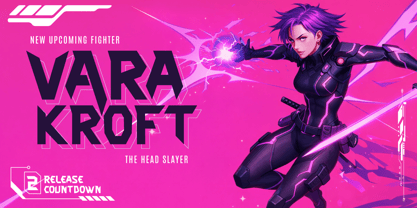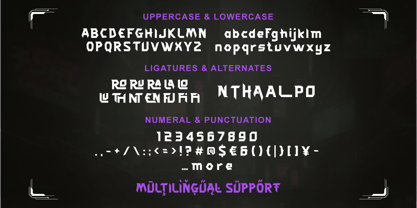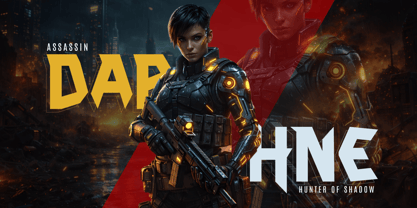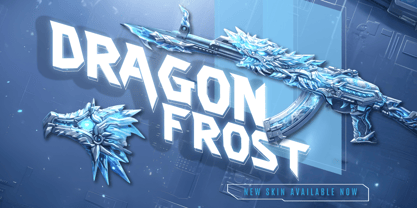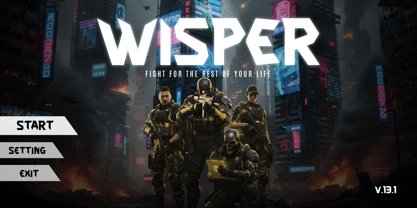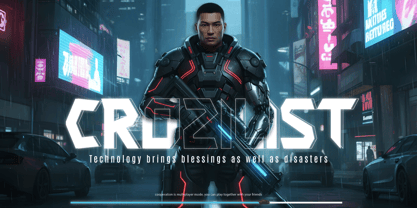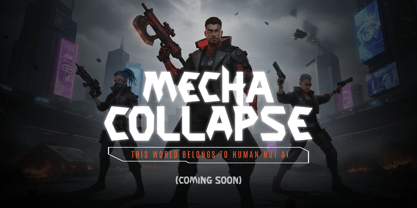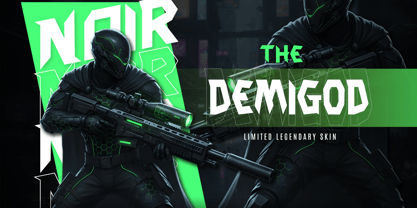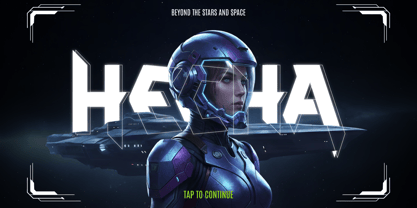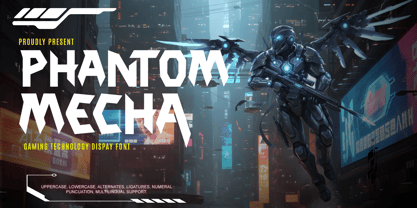
Phantom Mecha is a Gaming Technology Font typeface featuring a mechanical and futuristic aesthetic. Designed with bold, sharp letterforms, this font represents the precision of robotic technology and modern military hardware. Its visual characteristics are ideal for Action FPS game titles, esports logo designs, and creative projects requiring a strong, tactical visual identity. The font's anatomical structure adopts a Military Sci-Fi style with sharp angular cuts to maintain readability across various screen sizes. This makes Phantom Mecha highly functional for Futuristic Weapon UI elements, heads-up display (HUD) graphics, and future-tech infographics. Each character is designed to balance mechanical decorative style with professional technical function. As a Shooter Game Technology Font, Phantom Mecha provides a stable typography solution for game developers and graphic designers. Equipped with multilingual support and a complete character set, this font offers high flexibility for branding needs in the digital entertainment industry. Phantom Mecha is the right choice for creating an immersive and modern sci-fi atmosphere in any design composition.
- Multilingual Support: Fully supports 85+ languages, including:
Afrikaans, Albanian, Asu, Basque, Bemba, Bena, Breton, Catalan, Chiga, Cornish, Croatian, Czech, Danish, Dutch, Embu, English, Esperanto, Estonian, Filipino, Finnish, French, Friulian, Galician, Gusii, Hungarian, Indonesian, Irish, Italian, Kabuverdianu, Kalenjin, Kamba, Kikuyu, Kinyarwanda, Latvian, Lithuanian, Lower Sorbian, Luo, Luxembourgish, Luyia, Machame, Makhuwa-Meetto, Makonde, Malagasy, Maltese, Manx, Meru, Morisyen, North Ndebele, Norwegian Bokmål, Norwegian Nynorsk, Nyankole, Oromo, Polish, Portuguese, Quechua, Romanian, Romansh, Rombo, Rundi, Rwa, Samburu, Sango, Sangu, Scottish Gaelic, Sena, Serbian, Shambala, Shona, Slovak, Slovenian, Soga, Somali, Spanish, Swahili, Swedish, Swiss German, Taita, Teso, Turkish, Upper Sorbian, Uzbek (Latin), Volapük, Vunjo, Walser, Zulu.
Phantom Mecha